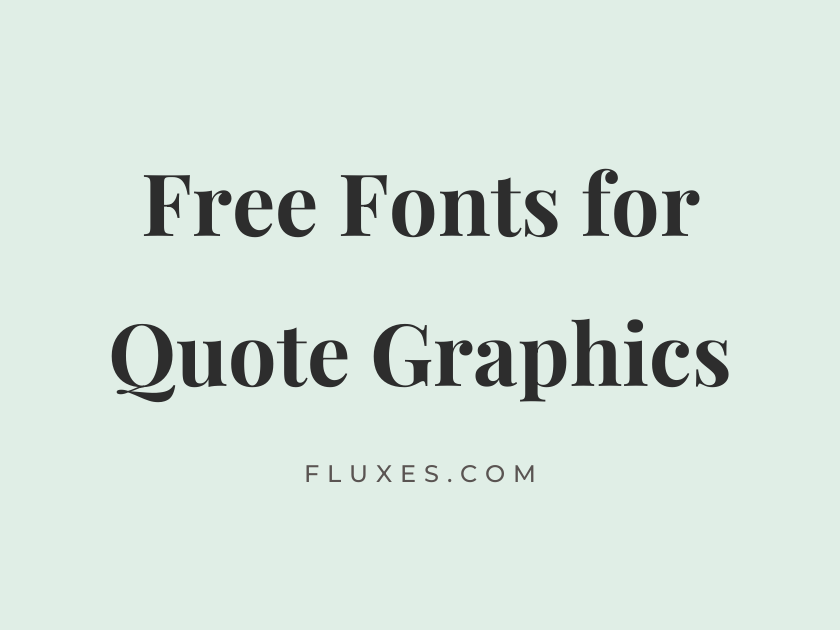
67 Best Free Fonts for Quote Graphics
Quote graphics live or die on typography. With just a handful of words filling the frame, the letterforms themselves carry the entire mood, whether that is quiet encouragement, blunt motivation, romantic nostalgia, or sharp modern minimalism. The right free font can turn a plain sentence into something worth screenshotting, saving, and sharing, and Google Fonts happens to be stacked with options built for exactly this kind of work.
What follows is a wide sweep of free fonts for quote graphics, covering elegant serifs, clean sans faces, loud display letters, and the scripts and handwritten styles that dominate so much of social media today. Each one earns its place by doing something a quote card actually needs: readability at a glance, personality that matches a tone, or texture that makes a single line feel designed rather than dropped in.
1. Playfair Display
Some words deserve to be framed
High contrast strokes and a fashion-editorial polish make this one of the most reached-for serifs for quote graphics, especially when the sentiment is aspirational or a little dramatic. The thin hairlines can lose crispness at very small sizes, so it earns its keep as a headline face rather than body copy.
Pair it with a plain sans for attribution lines and it instantly reads like a magazine pull-quote.
2. Cormorant Garamond
Whisper it like you mean it
Delicate, tall, and a little romantic, this face suits quotes that are meant to be felt rather than shouted. It rewards generous letter spacing and plenty of white space around it.
3. EB Garamond
Truth spoken softly still echoes loud
A faithful digital revival of an old-style book serif, carrying centuries of literary credibility into a single Instagram square. It works especially well for longer quotes where a classic, well-read feeling matters more than visual noise.
4. Libre Baskerville
Read twice, remember always
Designed specifically for on-screen legibility, this is a dependable choice when the quote itself is long and needs to stay readable at thumbnail size. It leans traditional and trustworthy rather than trendy.
5. Lora
Every story begins with one line
Slightly brushed curves give Lora a warm, literary character that avoids feeling stiff. It sits comfortably behind quotes about writing, storytelling, or reflection, and holds up well across weights.
6. Prata
Grace is a quiet kind of strength
There is an understated luxury to Prata’s narrow serifs, the kind of typeface that suits bridal brands, wellness pages, and any quote meant to feel calm rather than urgent. It is a display face first, so keep it short.
7. Cardo
Ancient words for a modern feed
Built originally for classical and medieval text, Cardo brings a scholarly, slightly archaic feel that suits philosophy quotes, poetry excerpts, or anything with a historical voice.
8. Crimson Text
A sentence worth saving forever
Modeled on old-style book typefaces, Crimson Text reads like it belongs on a printed page rather than a phone screen, which is precisely its appeal for quote cards with a literary bent.
9. Spectral
Light finds the smallest opening
A serif with a bit more geometric structure than most classic book faces, Spectral feels contemporary without losing warmth. Good for editorial-style quote graphics on design and lifestyle brands.
10. Bitter
Say it plain, say it true
Originally built as a slab serif for screens, Bitter has sturdy, confident letterforms that stay legible even in busy background images. It suits straightforward, no-nonsense quotes over photography.
11. Domine
Steady words for steady hearts
Solid and a touch old-fashioned, Domine was designed for long-form reading, so short quotes set in it feel weighty and considered rather than decorative.
12. Alegreya
Poetry lives in the pause
Alegreya was drawn specifically for poetry and literature, and it shows in the calligraphic rhythm of its letters. It is a natural match for verse, song lyrics, and reflective one-liners.
13. Vollkorn
Honest words, honestly set
Unfussy and grounded, Vollkorn avoids any hint of ornament, which makes it a safe, versatile pick when the quote itself should do all the talking.
14. Frank Ruhl Libre
Wisdom rarely shouts
This one carries a distinctive, slightly angular texture that reads as intellectual and considered. It works particularly well for terse, aphoristic quotes that need room to breathe on the page.
15. Rozha One
Bold thoughts carved in stone
Chunky serifs with a hint of Devanagari-influenced structure give Rozha One a sculptural, carved quality. Reserve it for short, punchy phrases rather than full sentences.
16. Marcellus
Timeless words for timeless feeds
Finally, leave room to breathe. Generous margins and letter spacing do more to make a quote feel premium than any single font choice.
With this many free, well-made options on Google Fonts, there is rarely a reason to reach for a paid typeface just to make a quote graphic look considered. The real work is matching mood to letterform, then giving the words enough space to actually be read.